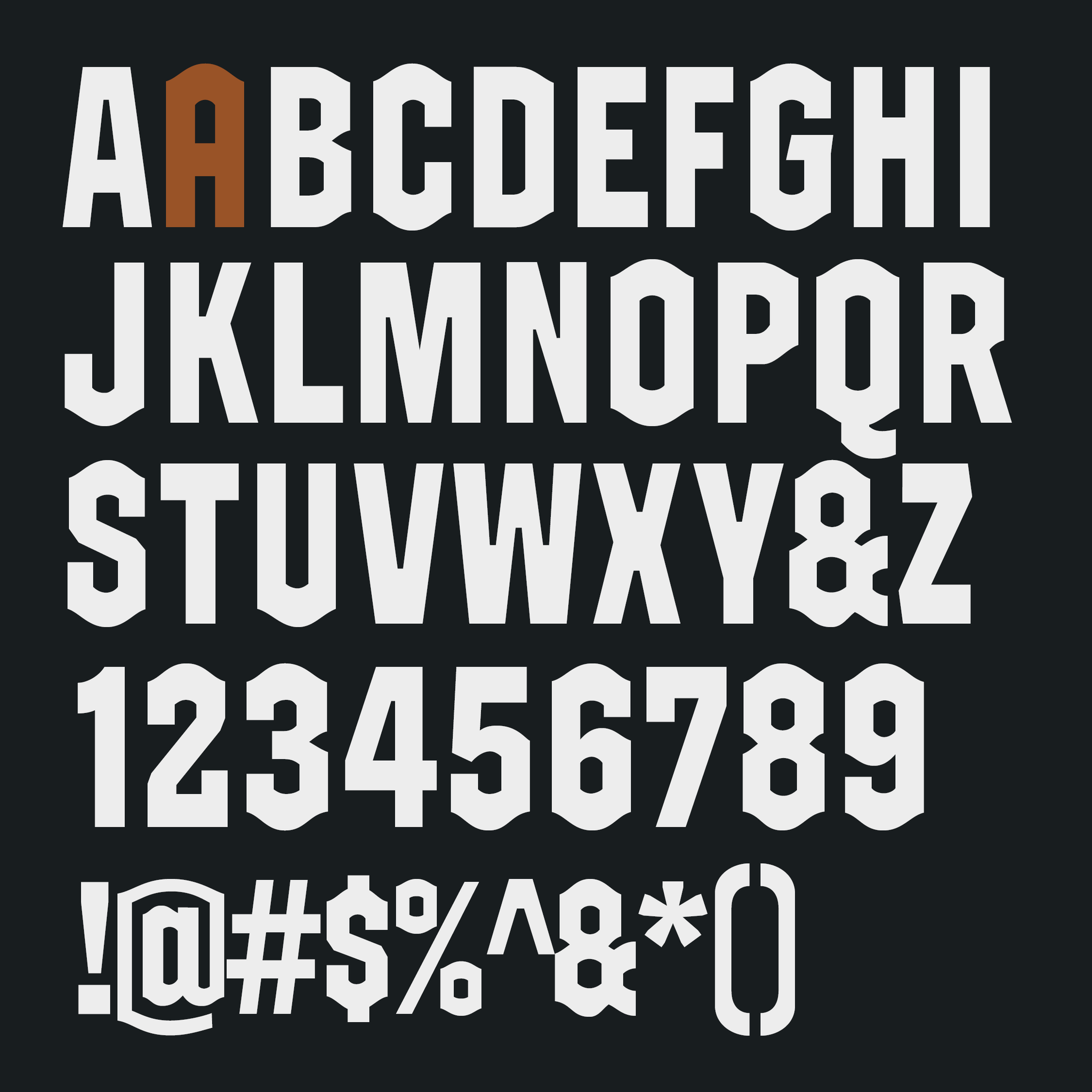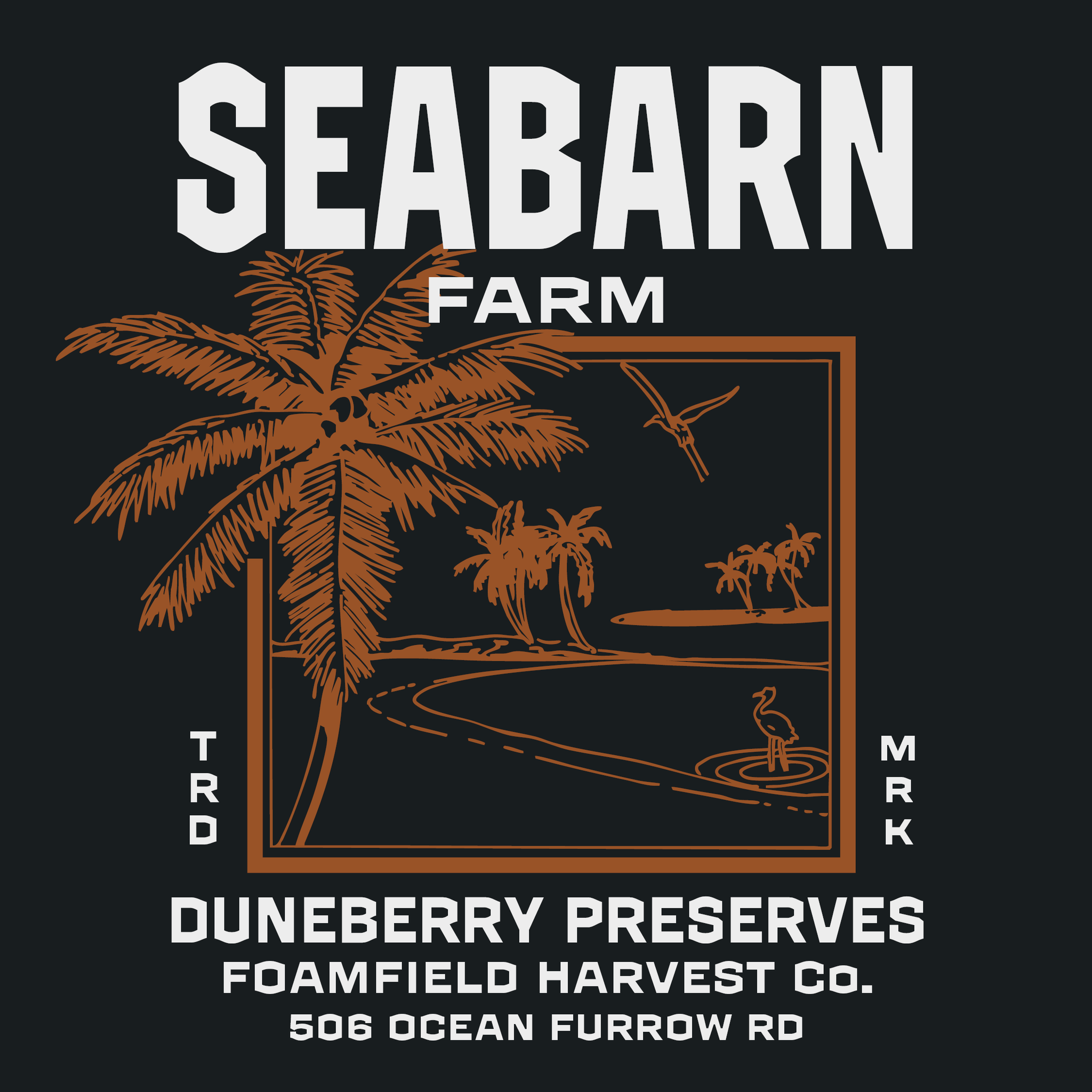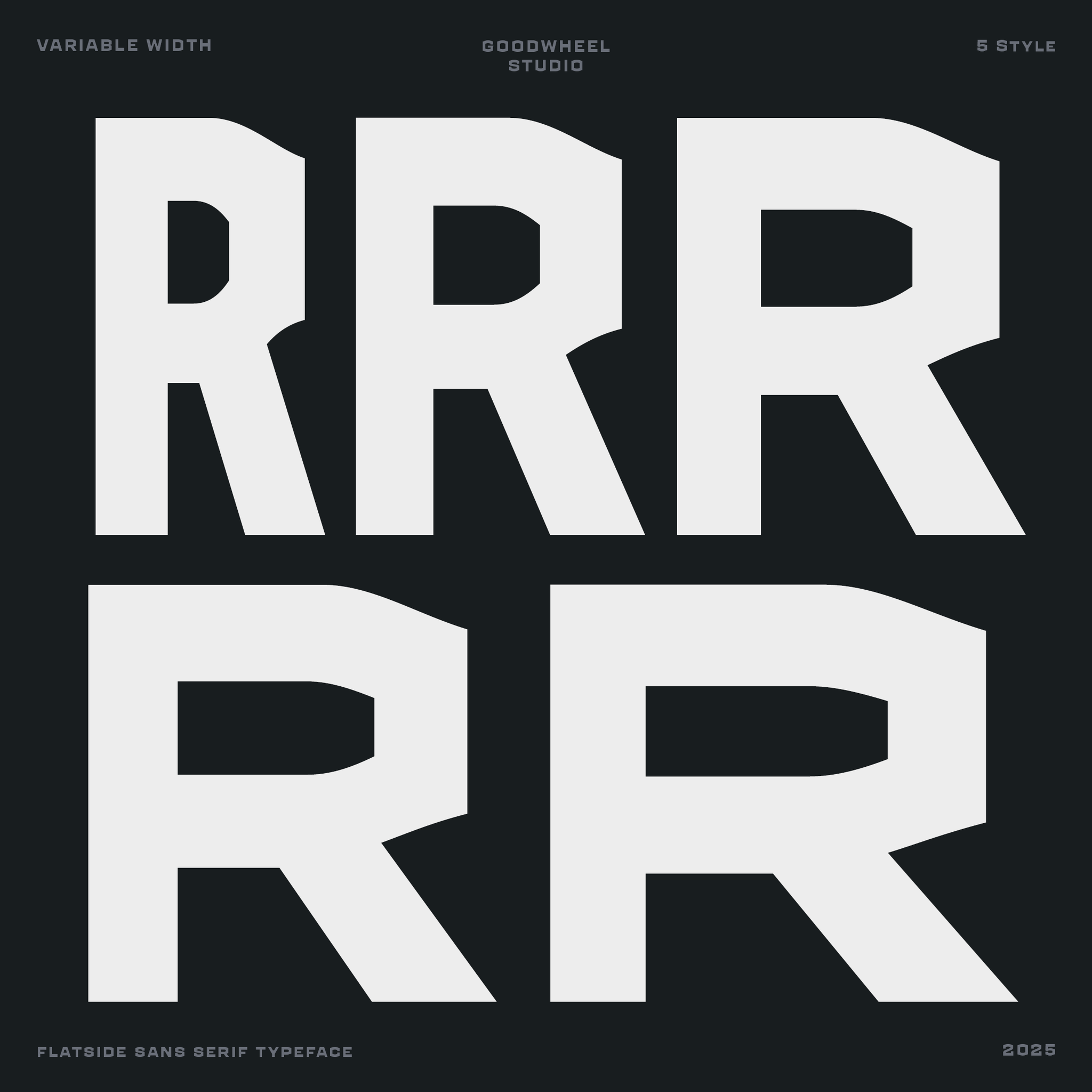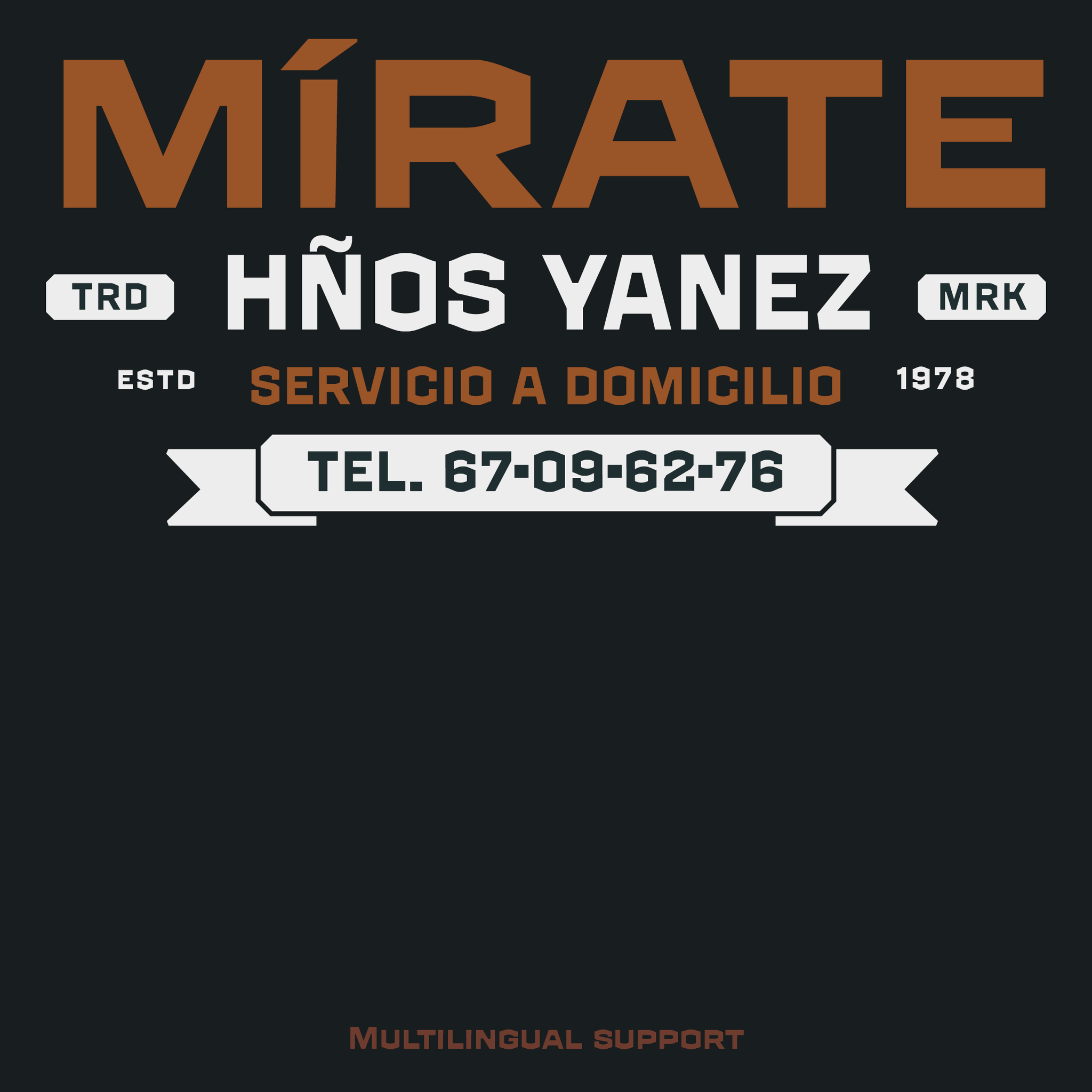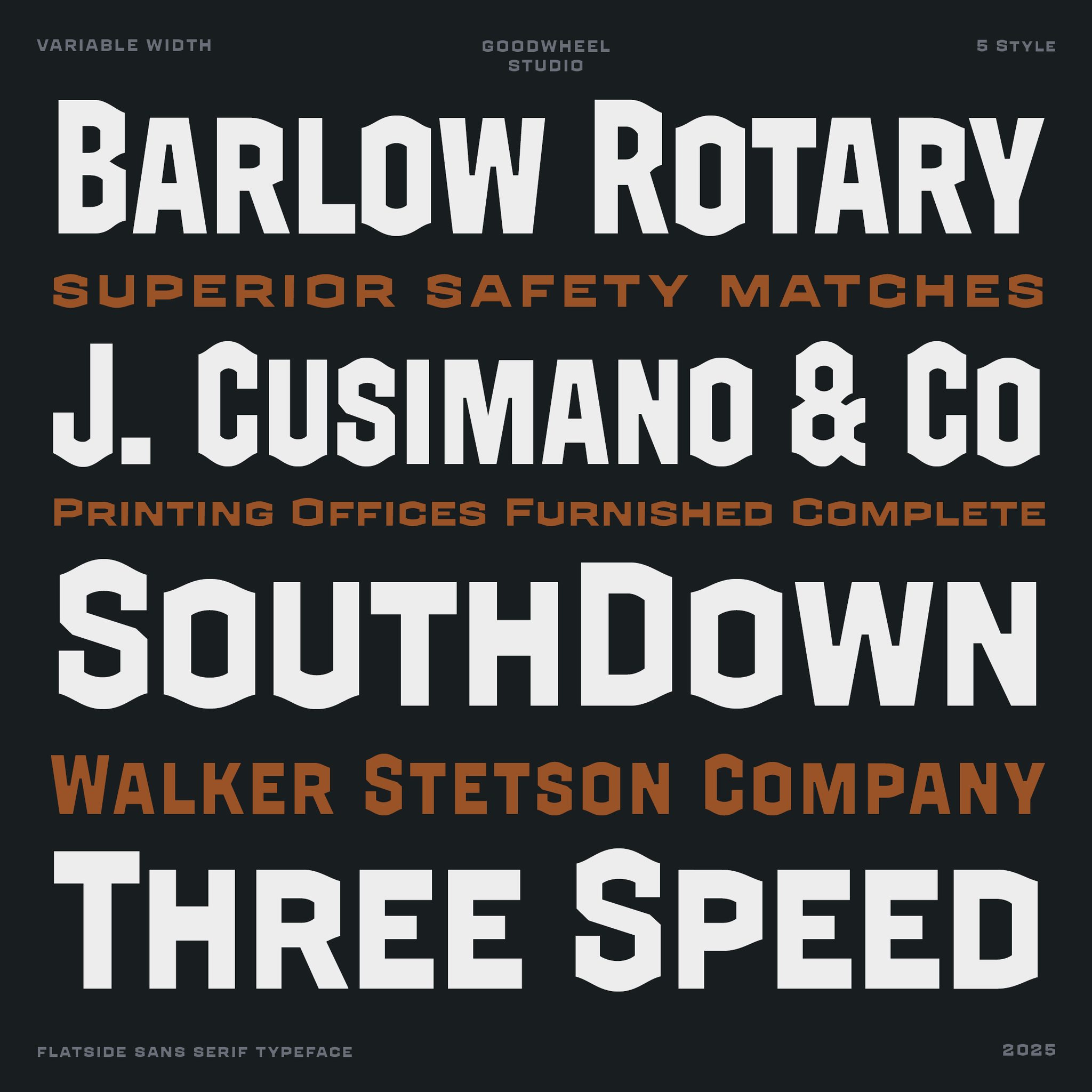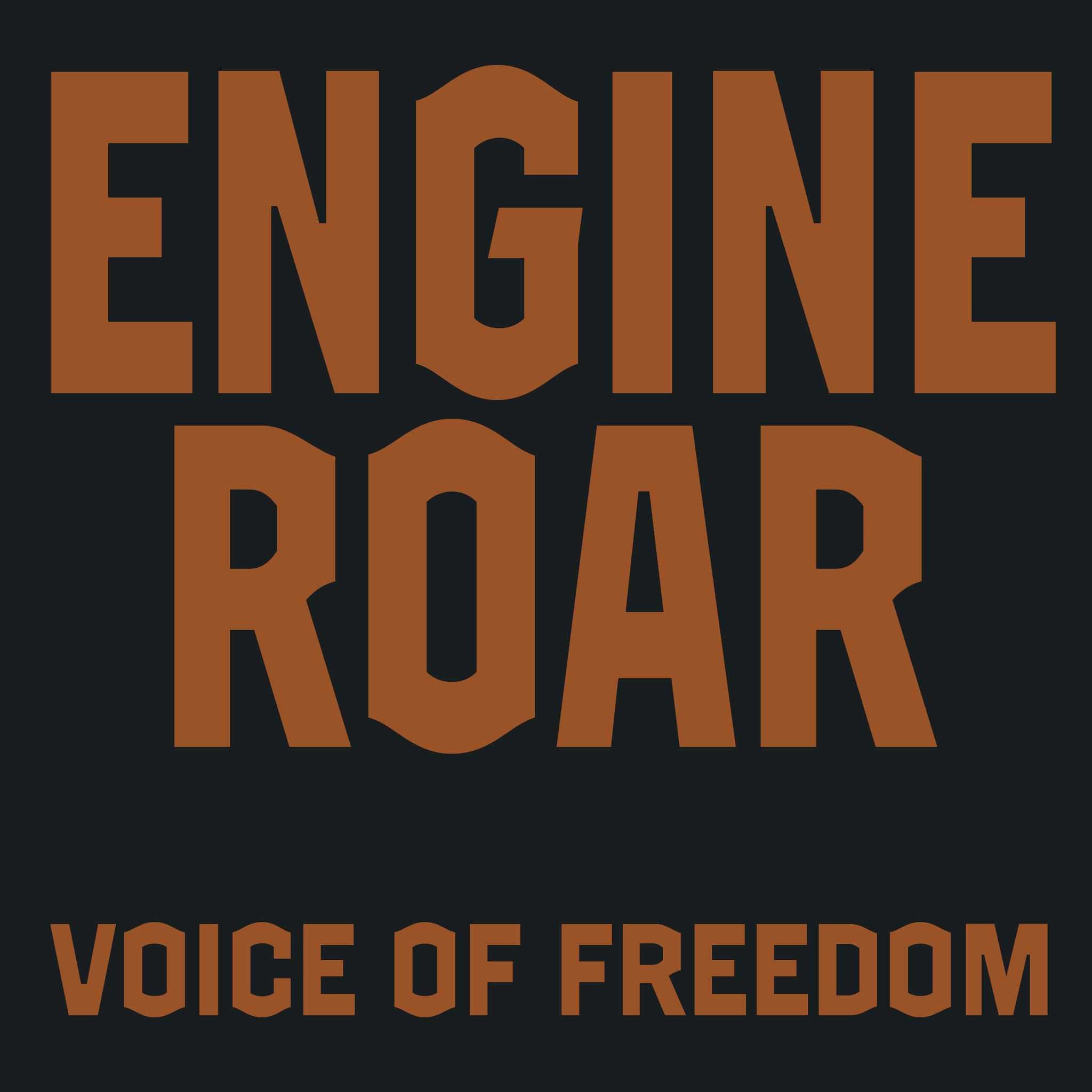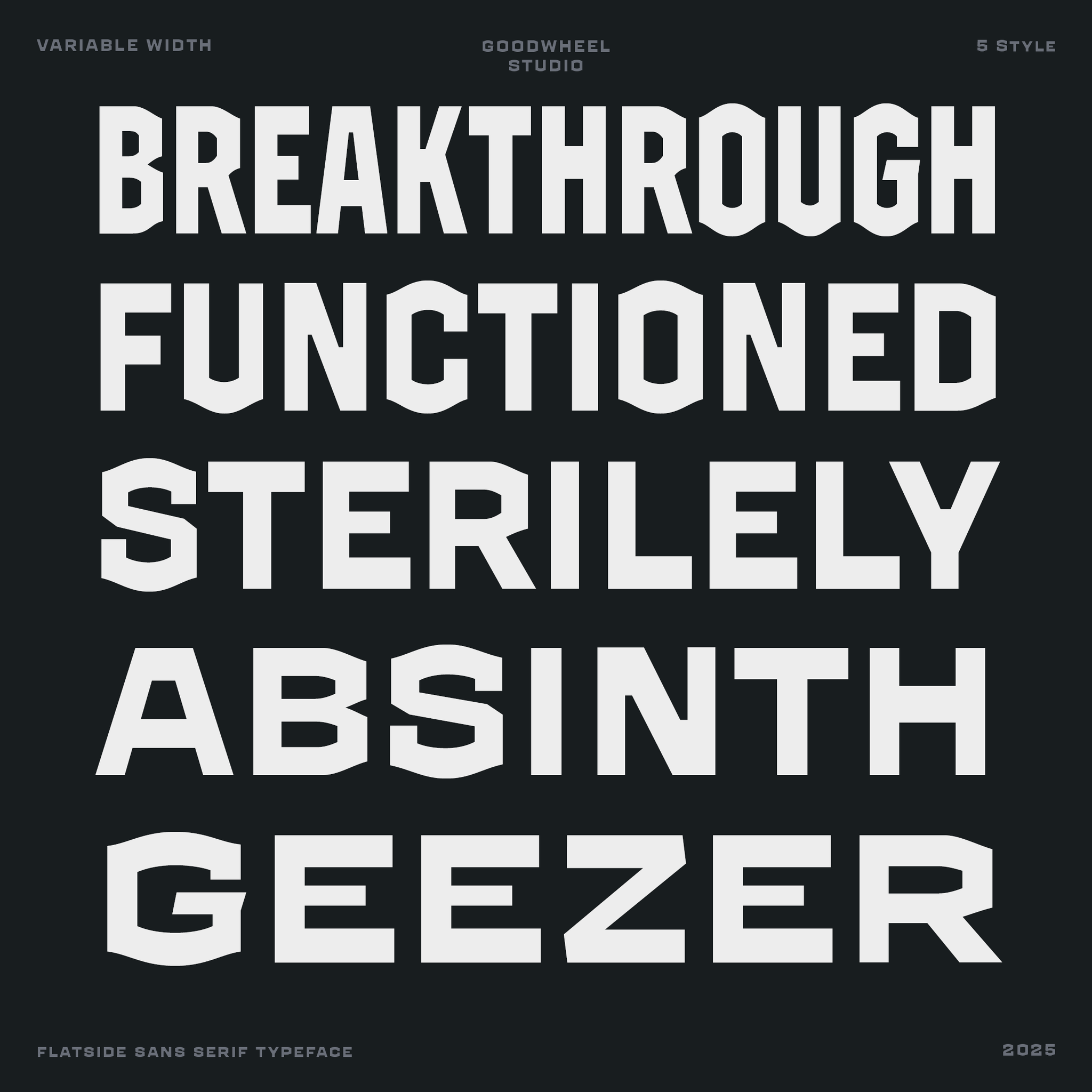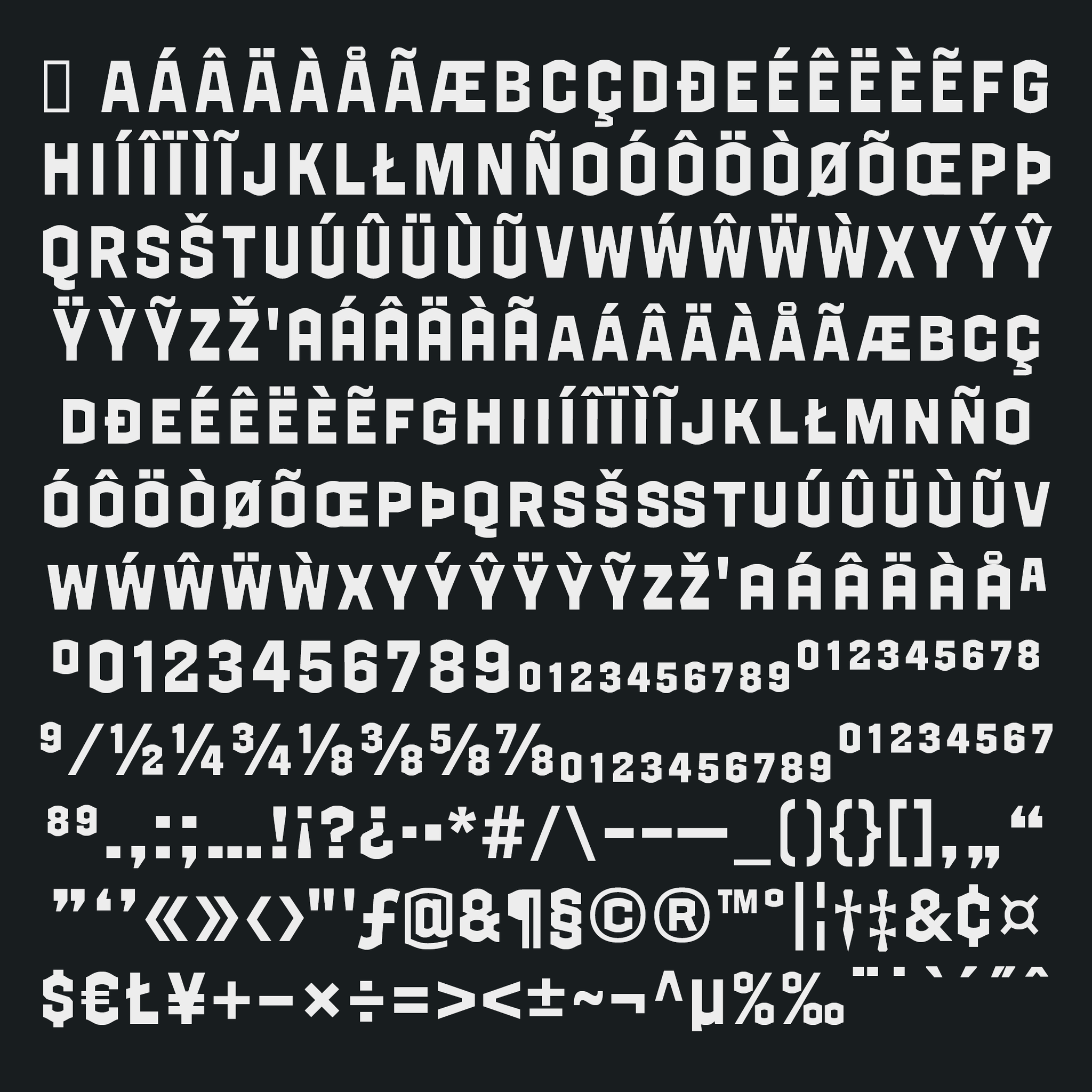
Grayback
Goodwheel Studio
Grayback Variable is a flat-side sans serif with a subtle reversed contrast, perfect for bold headlines, posters, logos, and standout typography.
Includes 5 styles from Condensed to Expanded plus a fully adjustable variable font for custom widths. Ideal for designers who want a versatile, distinctive display typeface for print and digital projects.
Designer
Goodwheel Studio
Style
Sans Serif
Category
Display
Features
Variable